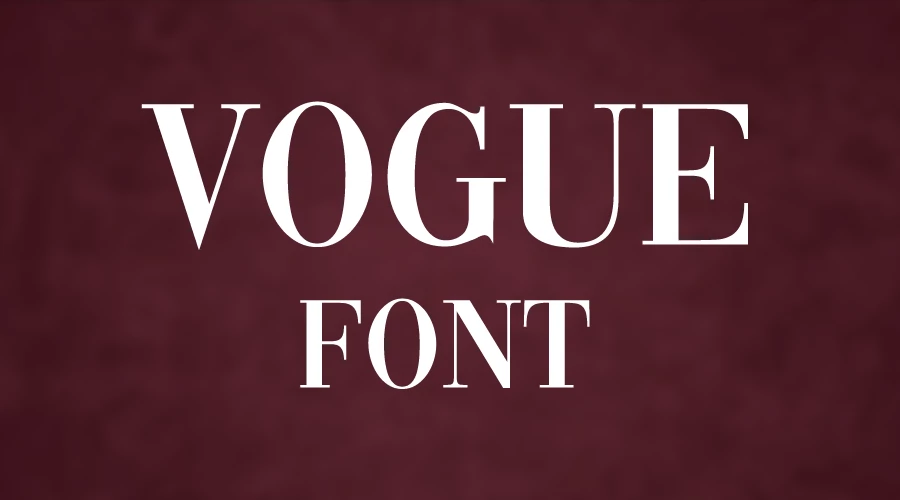
Vogue Font
Welcome, Today we will talk about Vogue font. The Vogue magazine logo is a well-known and iconic design that is associated with the famous American fashion magazine. The logo features the word “Vogue” in a bold, serif font with a distinctive, slanted “O.” The logo is often presented in a sleek black-and-white color scheme, although it has also been featured in other colors such as red and blue. The logo has become an instantly recognizable symbol of fashion and style, and it is often used in advertising, branding, and other promotional materials for the magazine.
About the Font
The Vogue Magazine logo has also inspired the creation of other design elements, such as the Vogue font, which was inspired by or stated to be similar to the font used on the logo. It is a serif font that was designed by Vladimir Nikolic and published in 2018. He is also the copyright owner of the font. The font has a wide range of characters that are easy to read and understand. MADE Canvas Font and Playfair Display Font are similar to Vogue Font.
What Are the Vogue Font’s Best Uses?
The Vogue font is a high-quality typeface with various features and attributes, and it can be used in a variety of situations, such as in fashion, logos, and invitation cards. It is a fashionable font that is suitable for use in the entertainment industry and for adding a stylish touch to designs.
It is a fancy, elegant, and fashionable font that is suitable for use in headlines, logos, book covers, posters, and other creative designs. You can also use the Vogue font on various platforms and devices, such as Canva, Photoshop, Google Docs, Word, Cricut Design Space, and Android.